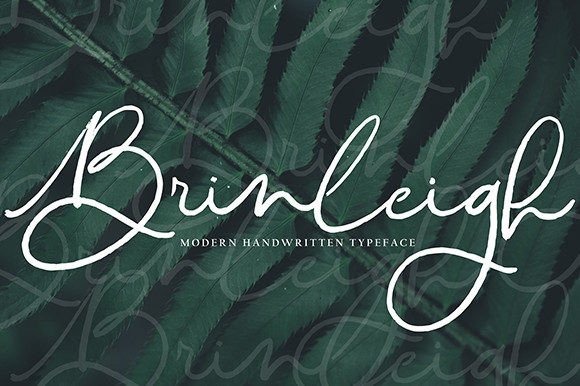
The Brinleigh Font: A Beautifully Flowing Script for Creative Projects
I’ll never forget the time I was working on a client project, tasked with creating a stunning logo that would make their brand stand out. The problem was, I just couldn’t find the right font. I scrolled through page after page of Google Fonts, but nothing seemed quite right. That was until I stumbled upon the Brinleigh font. With its beautifully flowing script and elegant lines, it was love at first sight! ✨
A Personal Review of Brinleigh
As a designer, I’m always on the lookout for fonts that can help my clients’ brands shine. And let me tell you, Brinleigh delivers. Here’s what I love about it:
• 💫 Elegant and flowing script style that’s perfect for high-end brands
• 🌈 Beautifully crafted to evoke a sense of luxury and sophistication
• 📚 Works beautifully for a variety of projects, from logos to invitations
Of course, no font is perfect, and Brinleigh does have a few small quirks:
• 🤔 Can be a bit overused, so be sure to pair it with other design elements to keep it fresh
• ⚠️ May not be the best choice for body text, as it can be a bit too ornate for long blocks of text
The Story Behind Brinleigh
According to its designer, Brinleigh was inspired by the elegant scripts of the 19th century. With its flowing lines and beautiful letterforms, it’s no wonder that Brinleigh has become a favorite among designers and crafters. Whether you’re creating a logo, invitation, or social media graphic, Brinleigh is the perfect choice for adding a touch of sophistication and style.
Font Name Brinleigh Font
Author Pineungtype & Missinklab
Q: What type of projects is Brinleigh best suited for?
A: Brinleigh is perfect for a range of projects, including logos, invitations, posters, and social media graphics.
Q: Is Brinleigh easy to read?
A: Yes, Brinleigh is highly legible, even at smaller font sizes, making it perfect for use in a range of design applications.
Q: Can I use Brinleigh with other fonts?
A: Absolutely! Brinleigh pairs beautifully with a range of fonts, from sans serifs to serifs and other scripts.